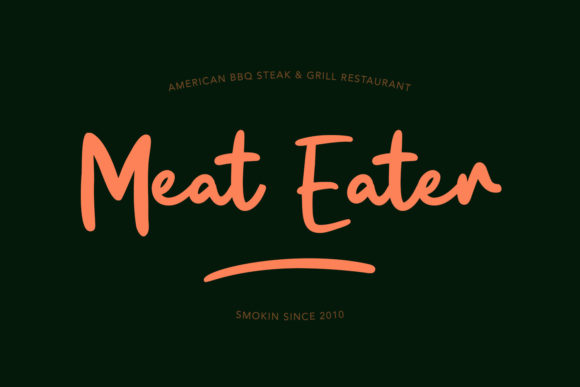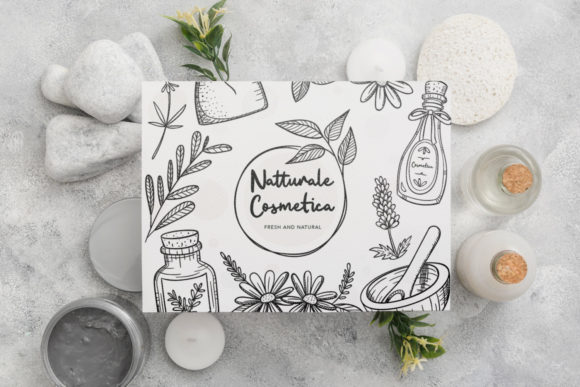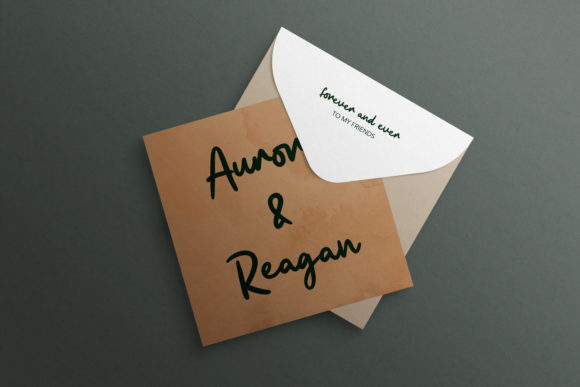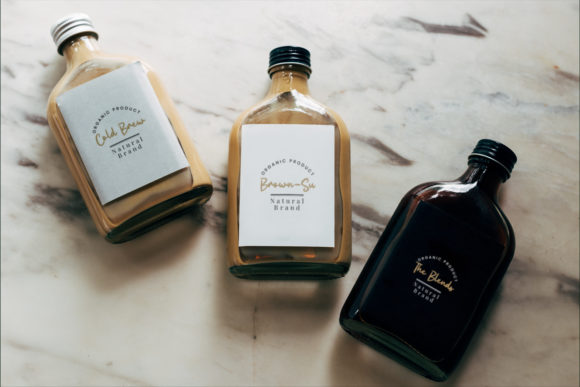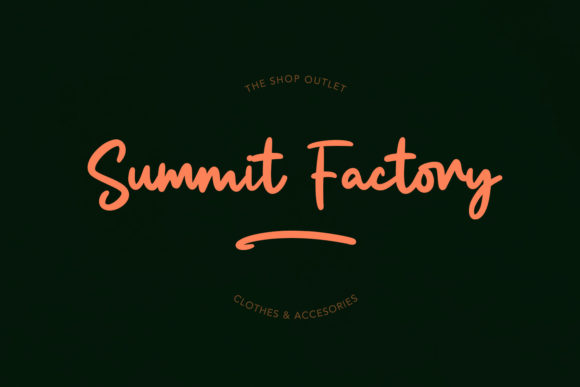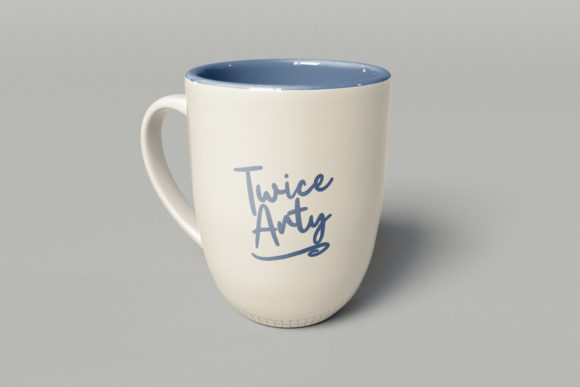
Introduction to Glofuts Font
Have you ever found yourself staring at a blank canvas, waiting for that perfect spark to ignite your creative project? For many designers, it’s those moments of uncertainty that lead to the discovery of the perfect design resource – a font that brings their vision to life. Today, we’re excited to introduce you to the charming Glofuts Font, a paint-brushed handwritten font that’s sure to brighten up your designs.
With its sweet and full of life style, the Glofuts Font is a high-quality design element that can add a touch of whimsy to any project. Whether you’re working on a design that requires a transparent background or need a font that can stand out on its own, Glofuts Font is a valuable addition to any designer’s toolkit.
Key Features of Glofuts Font
- High-quality font design for creative projects, ideal for graphic designers and artists
- Designed with a unique, modern aesthetic, suitable for a wide range of creative projects and design resources
Honest Review: Glofuts Font
I recently had the chance to work with the Glofuts Font, and I must say it’s been a game-changer for my design projects. As a design resource, it’s incredibly versatile and has allowed me to add a unique touch to my creative projects.
While the Glofuts Font is an excellent addition to any design library, there are a few limitations to consider:
- ⚠️ Limited character set: The font only includes a limited character set, which may not be suitable for projects that require a wide range of characters.
- ⚠️ No bold or italic versions: Unfortunately, the font does not come with bold or italic versions, which may limit its use in certain design contexts.
Overall, I’m extremely impressed with the Glofuts Font and would highly recommend it to any designer looking for a unique and versatile font for their creative projects.
The Glofuts Font is a high-quality design resource that offers a unique and creative touch to your projects. With its transparent background, this font is perfect for adding a professional touch to your designs.
Getting the Most Out of Glofuts Font
To get the most out of the Glofuts Font, use it in combination with other design elements to create a visually appealing design. Experiment with different font sizes, colors, and styles to create a unique look.
The Glofuts Font is perfect for:
Logo designs
Brochures and flyers
Business cards and letterheads
Web design and development